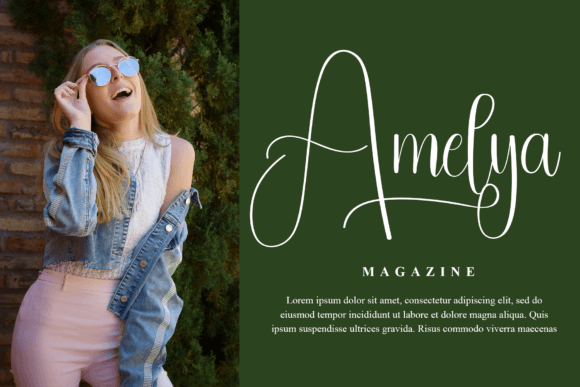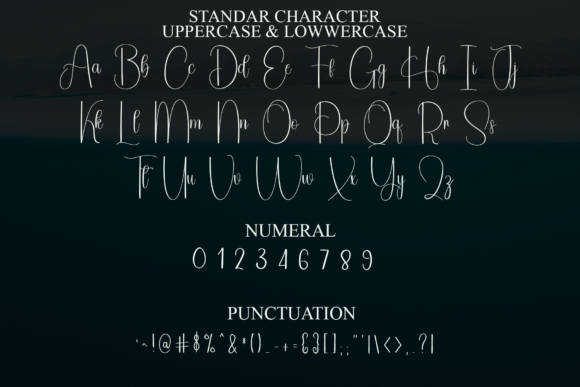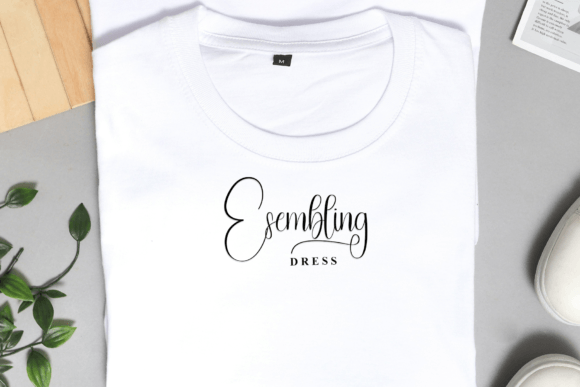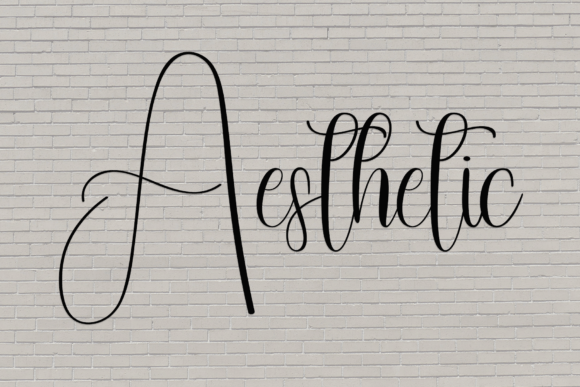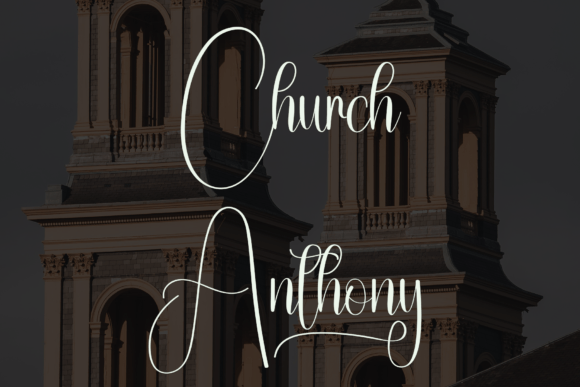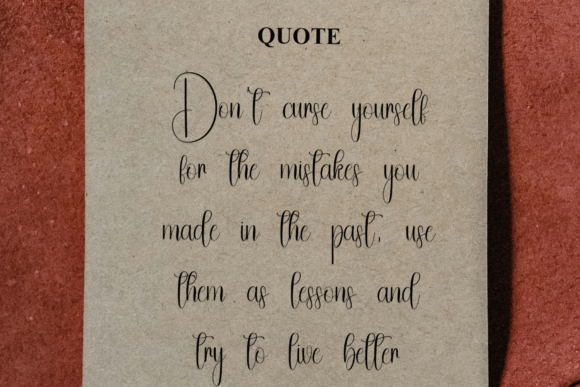
Introducing Anthony Font: Elevate Your Designs with Timeless Elegance
In the world of typography, a font can make or break the aesthetic of a design project. For designers and crafters seeking a touch of sophistication and elegance, Anthony Font is an exceptional choice. This stylish handwritten font boasts a contemporary atmosphere and impeccable form, drawing inspiration from timeless classic calligraphy. With its balanced and varied characters, Anthony Font is designed to enhance the beauty of your projects, making it a versatile addition to your typography arsenal.
The Inspiration Behind Anthony Font
Anthony Font is rooted in the rich tradition of calligraphy, where the art of beautiful handwriting has been a cornerstone of elegant design for centuries. The creators of Anthony Font took inspiration from these classic calligraphic styles, infusing them with a modern twist to create a font that feels both contemporary and timeless. This blend of old and new results in a font that can seamlessly integrate into a wide range of design projects, from modern branding to traditional crafting.
Key Features of Anthony Font
- Stylish Handwritten Style: Anthony Font features a stylish handwritten style that adds a personal touch to any design project. Its elegant strokes and fluid connections make it perfect for projects that require a touch of sophistication.
- Contemporary Atmosphere: Despite its classic inspiration, Anthony Font exudes a contemporary atmosphere that makes it suitable for modern design projects. Its clean lines and balanced characters ensure that it looks great in both digital and print formats.
- PUA Encoded: Anthony Font is PUA (Private Use Area) encoded, which means you can easily access all the amazing glyphs and ligatures. This feature allows for greater flexibility and creativity in your designs, making it easier to add unique touches to your projects.
- Balanced and Varied: The font is carefully crafted to be balanced and varied, ensuring that it looks great in a variety of contexts. Whether you’re working on a logo, a website, or a craft project, Anthony Font can adapt to your needs.
Applications of Anthony Font
Anthony Font’s versatility makes it suitable for a wide range of applications. Here are a few ideas to get you started:
- Branding and Logo Design: Create a lasting impression with a logo that exudes elegance and sophistication. Anthony Font’s stylish and contemporary feel makes it an excellent choice for branding and logo design.
- Website Design: Enhance the visual appeal of your website with Anthony Font. Its clean lines and balanced characters ensure that it looks great on both desktop and mobile devices.
- Crafting and DIY Projects: For crafters and DIY enthusiasts, Anthony Font can add a personal touch to handmade cards, invitations, and other craft projects. Its elegant style makes it perfect for projects that require a touch of sophistication.
- Print Design: Whether you’re working on brochures, flyers, or posters, Anthony Font can elevate your print designs with its classic yet contemporary feel.
Tips for Using Anthony Font
- Experiment with Sizes: Anthony Font looks great in various sizes, from large headings to smaller body text. Experiment with different sizes to find the perfect balance for your design.
- Mix and Match: Don’t be afraid to mix and match Anthony Font with other fonts to create visual interest. Its elegant style pairs well with a variety of font styles.
- Take Advantage of Glyphs and Ligatures: With PUA encoding, you can easily access a range of glyphs and ligatures. Use these to add unique touches to your designs and make them stand out.
Anthony Font is a stylish and versatile addition to any designer’s or crafter’s toolkit. Its blend of classic inspiration and contemporary style makes it suitable for a wide range of projects, from branding and website design to crafting and print design. With its PUA encoding and balanced characters, Anthony Font offers endless possibilities for creative expression. Elevate your designs with the timeless elegance of Anthony Font and discover the difference it can make in your work.